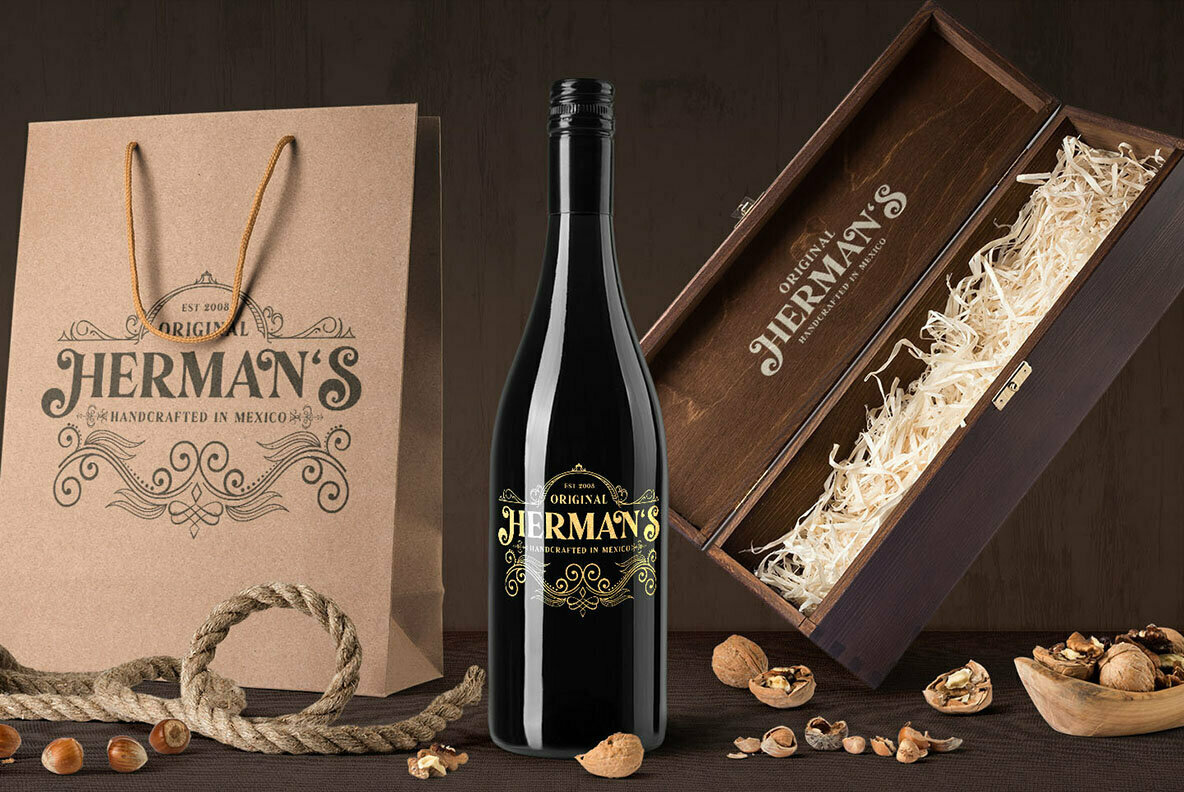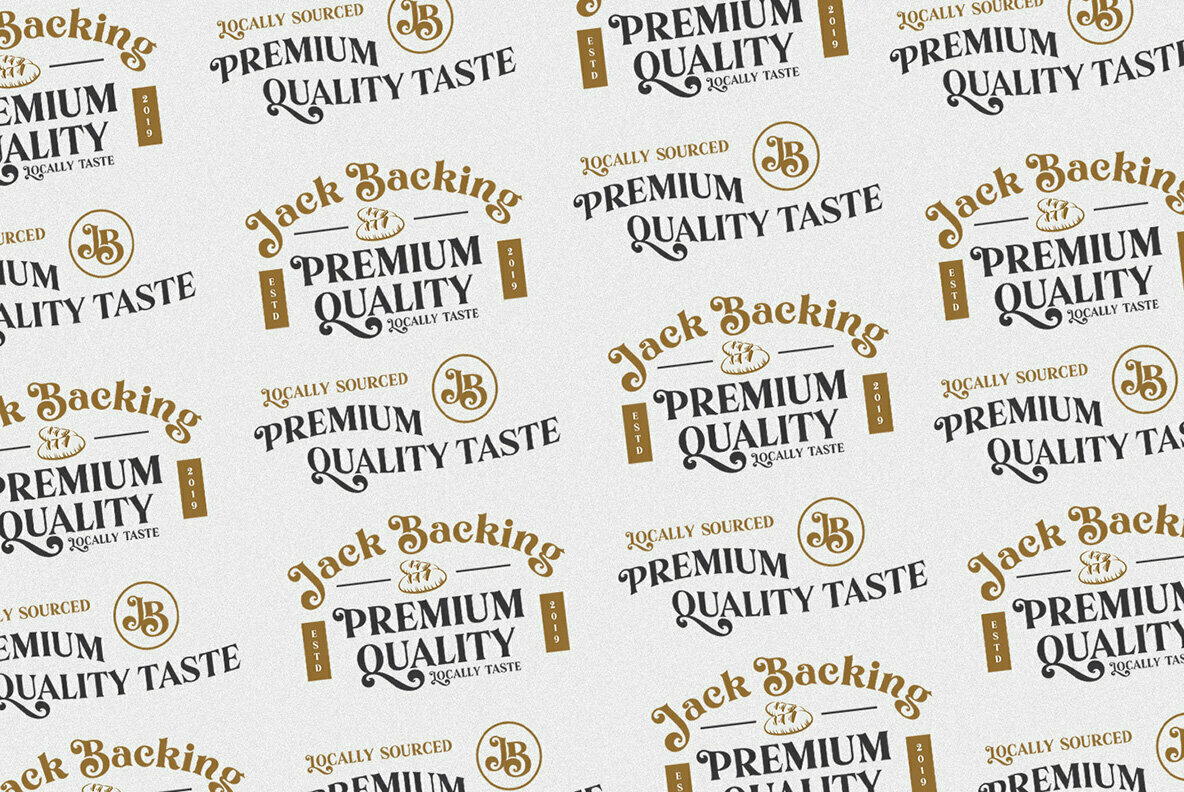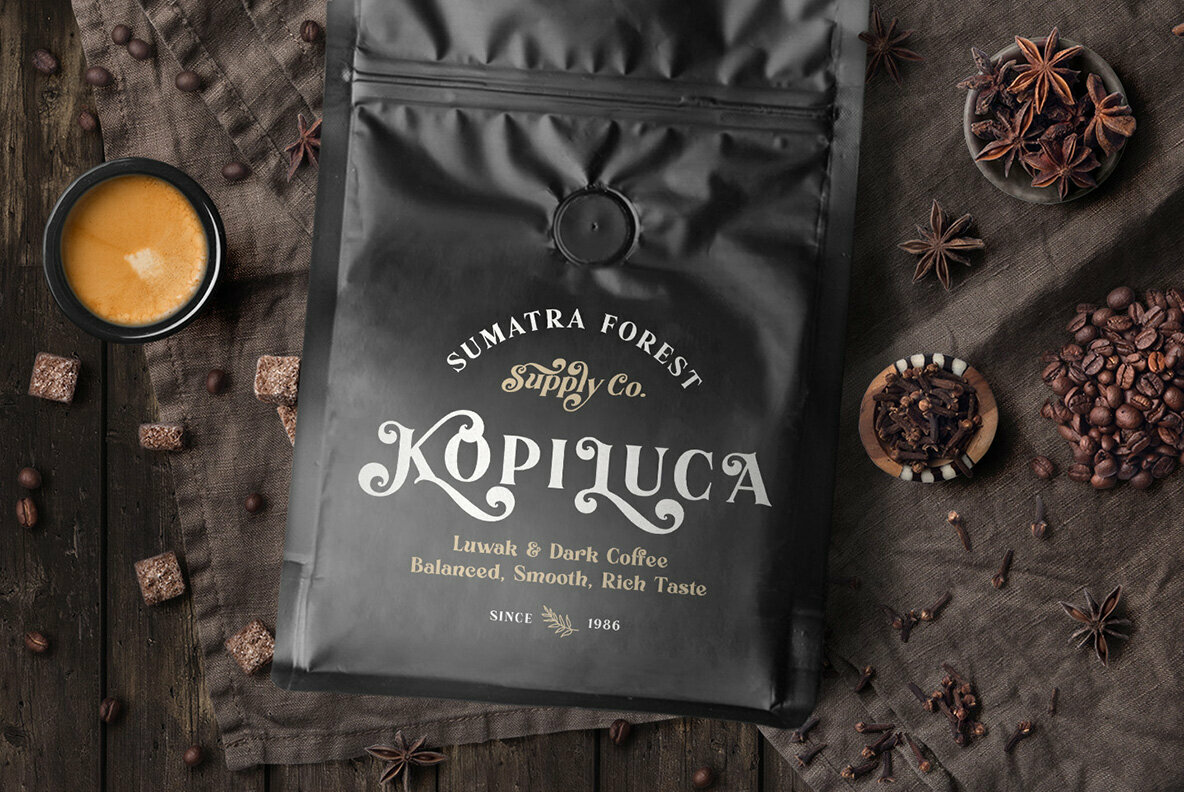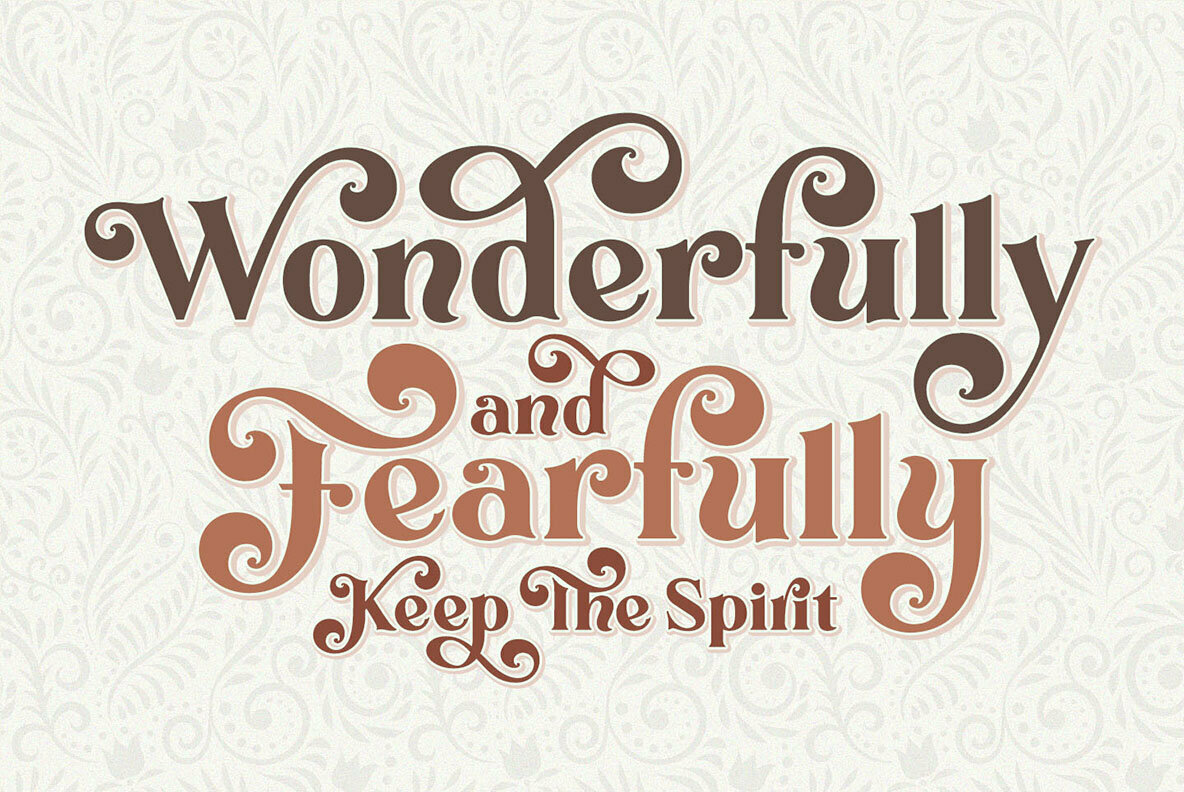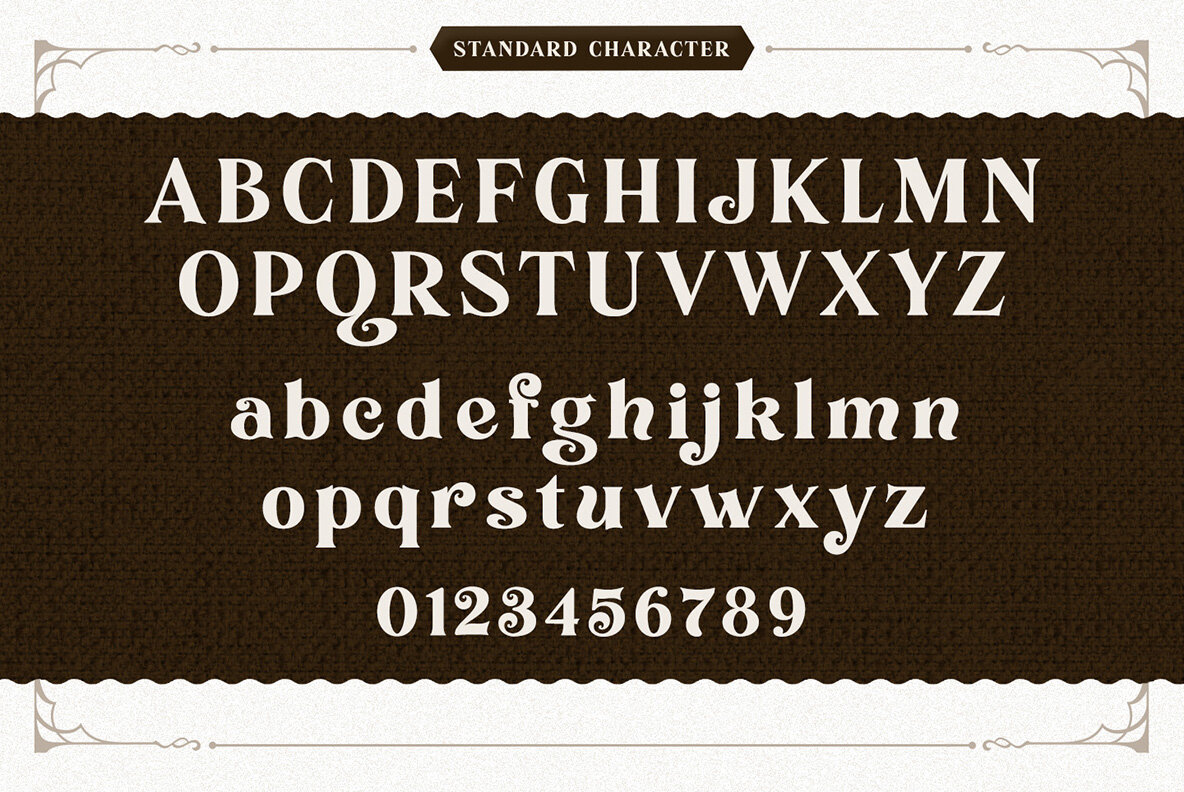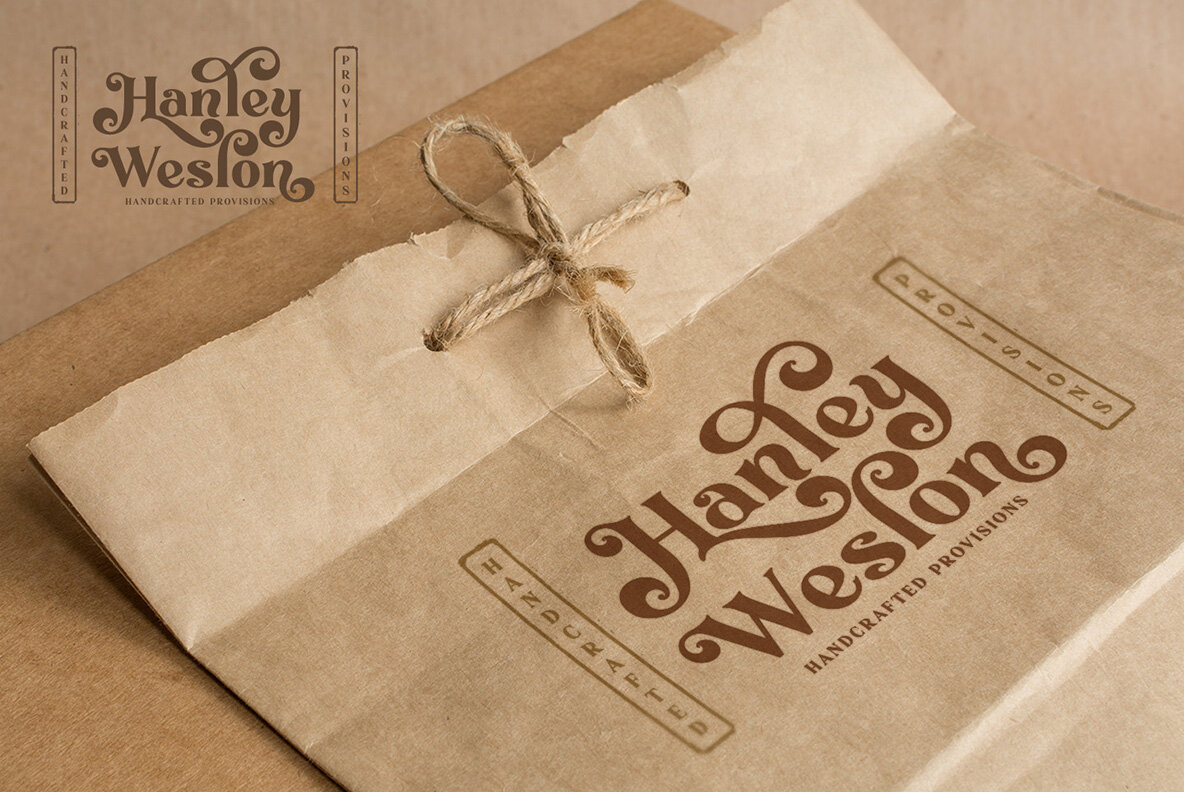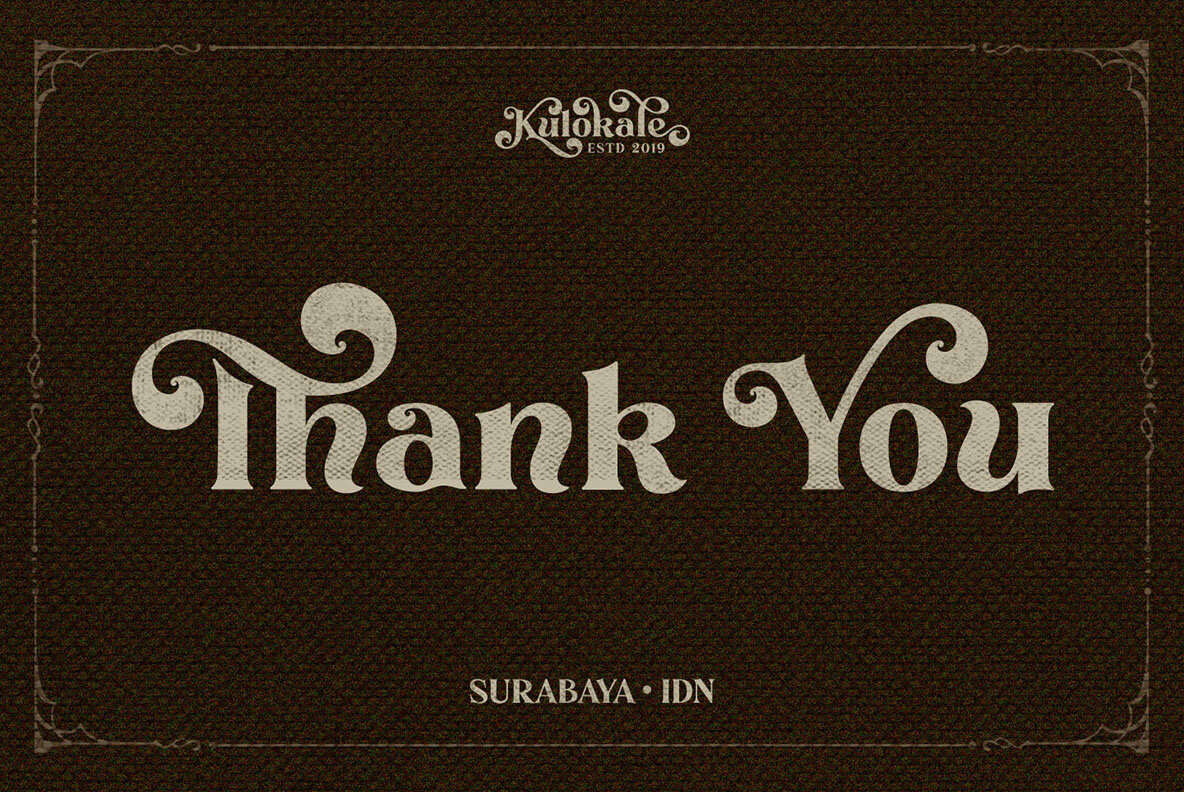
Foldnick Font
Foldnick
Foldnick Italic
Foldnick by Kulo Kale Studio is a refined display font offering a captivating assortment of alternate characters and ligatures. Ideal for crafting unique logos, this typeface effortlessly adapts to diverse branding needs, turning your vision into a striking visual identity. Its appealing aesthetics enhance personal and business projects, adding a touch of sophistication to any design endeavor. Perfectly suited for a variety of creative uses, Foldnick makes an impact whether it's used in logos, branding pieces, invitations, or wedding design. Its versatility extends to digital platforms, social media content, advertisements, and printed materials, making it a vital asset for graphic designers seeking to enhance product packaging, labels, and photography with elegance. Foldnick provides the tools necessary to craft beautiful and sophisticated typographic compositions, supporting your creativity across multiple platforms and mediums.Foldnick: Elegant Display Font with Versatile Features